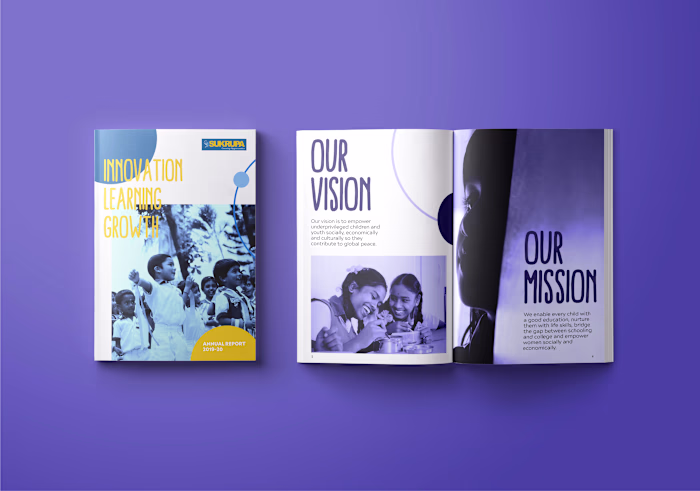
Paalam Display Typeface | Typeface Design
ABOUT THE PROJECT:
Paalam is a Tamil-Latin stylised display typeface that is designed specifically to support headliners, caption, posters, branding and other display uses.
The Latin script is built from Tamil script drawing inspiration from Gothic style under the contemporary light and reinterpreted it in experimental form.
The typeface was a part of my masters project. The purpose of the typeface was to address the gap of the lack of Tamil display typefaces in the market.
PROCESS:
Intense research was done on the origin of Tamil language and how the script has evolved over hundreds of years. I investigated Tamil in printed materials over centuries, the reason for the scarcity of Indic script typeface’s especially with Tamil. Does post-colonial positively or negatively impact the lack of Tamil typeface? Secondly, I wanted to find the reason for the lack of stylized Tamil-Latin display typeface. This in result is the design process of my current typeface Paalam.
DEFINING THE TYPEFACE:
a. Gothic texture inspire neoclassical font emphasized under contemporary light
b. Strong stroke contrast chiseled cut that is seen in gothic typefaces.
c. Tall, bold, condensed semi serif style that has a modern touch to it.
d. Slight symmetric and asymmetric at the same time
e. Using the strong geometric features of Tamil Brahmi script in designing Latin script